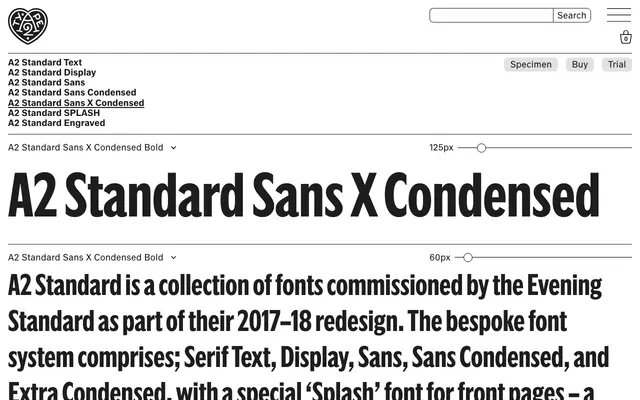
A2 Standard Sans X Condensed
A2-Type · 2017
A2 Standard Sans X Condensed specimen from A2-Type
The extra-condensed cut of A2-Type's bespoke type system for the Evening Standard, built for tight headline setting in tabloid newspaper format.
Commissioned as part of the Evening Standard's 2017–18 redesign, this extra-condensed sans runs seven weights from Thin to Heavy and sits at the compressed end of a 58-font editorial system. The X Condensed cut is built for maximum headline density in a tabloid grid, where extreme width compression allows longer counts without sacrificing size. Its siblings span serif text, display, standard and condensed sans, plus a dedicated splash font for front pages.
An extra-condensed sans-serif designed for newspaper use, part of a bespoke editorial type system. Its extreme width compression and range of weights place it firmly in the grotesque tradition adapted for high-density headline and display work.